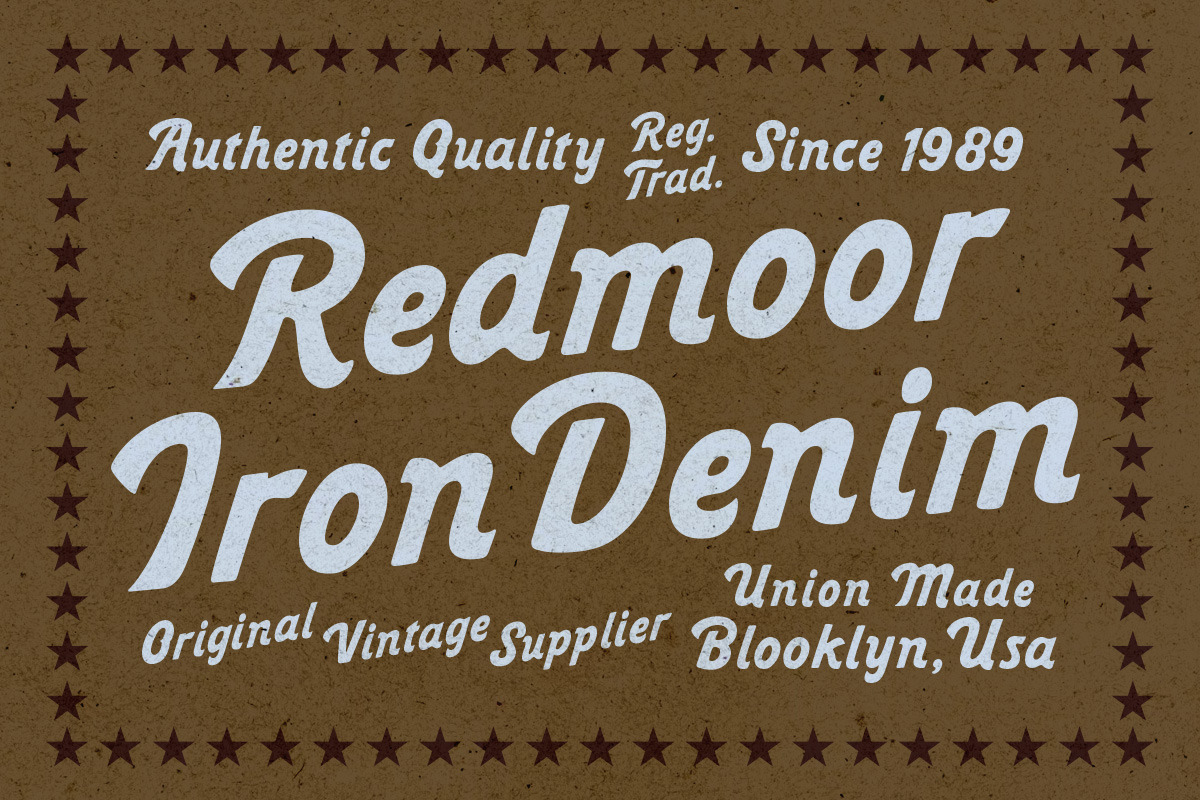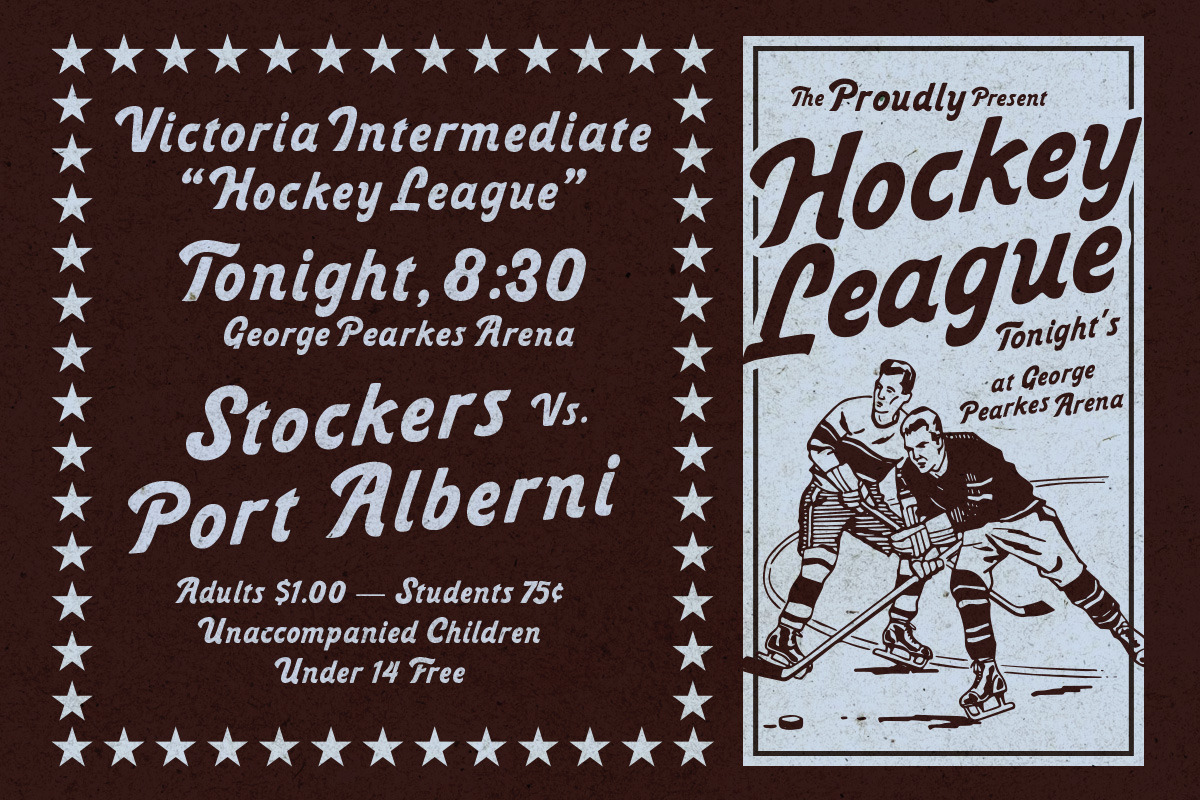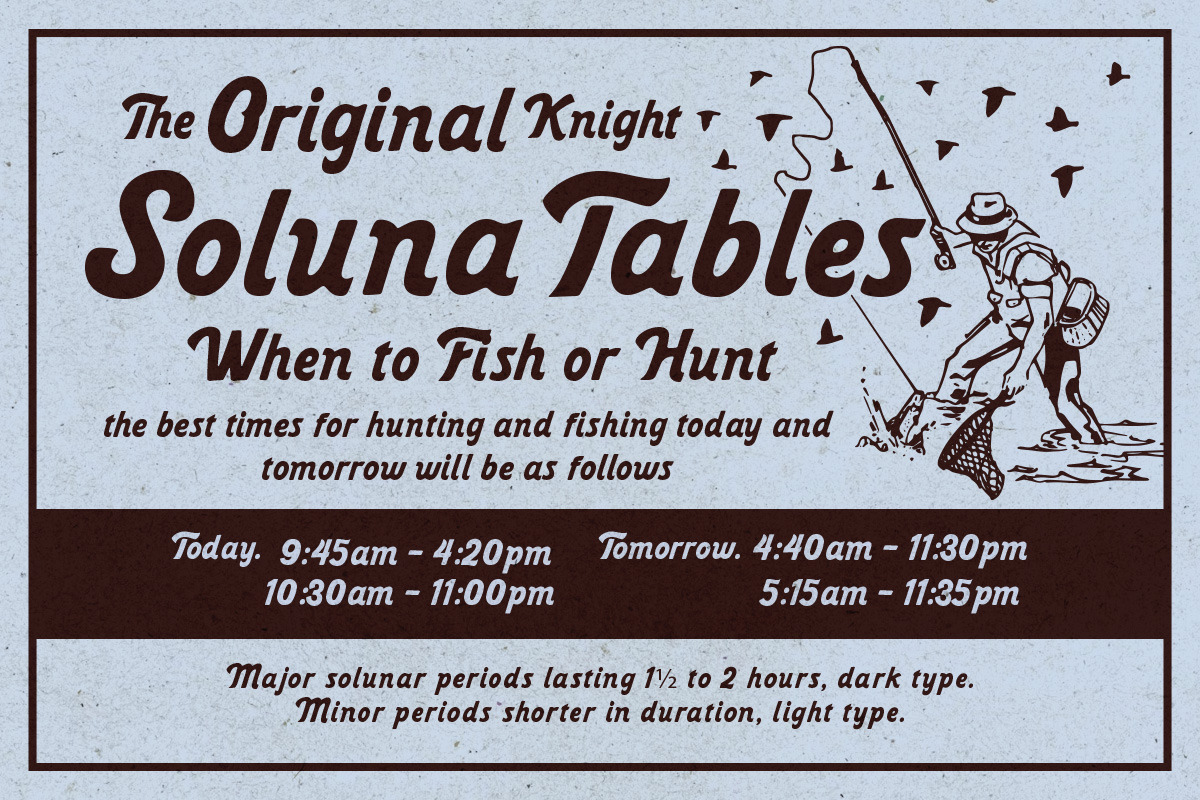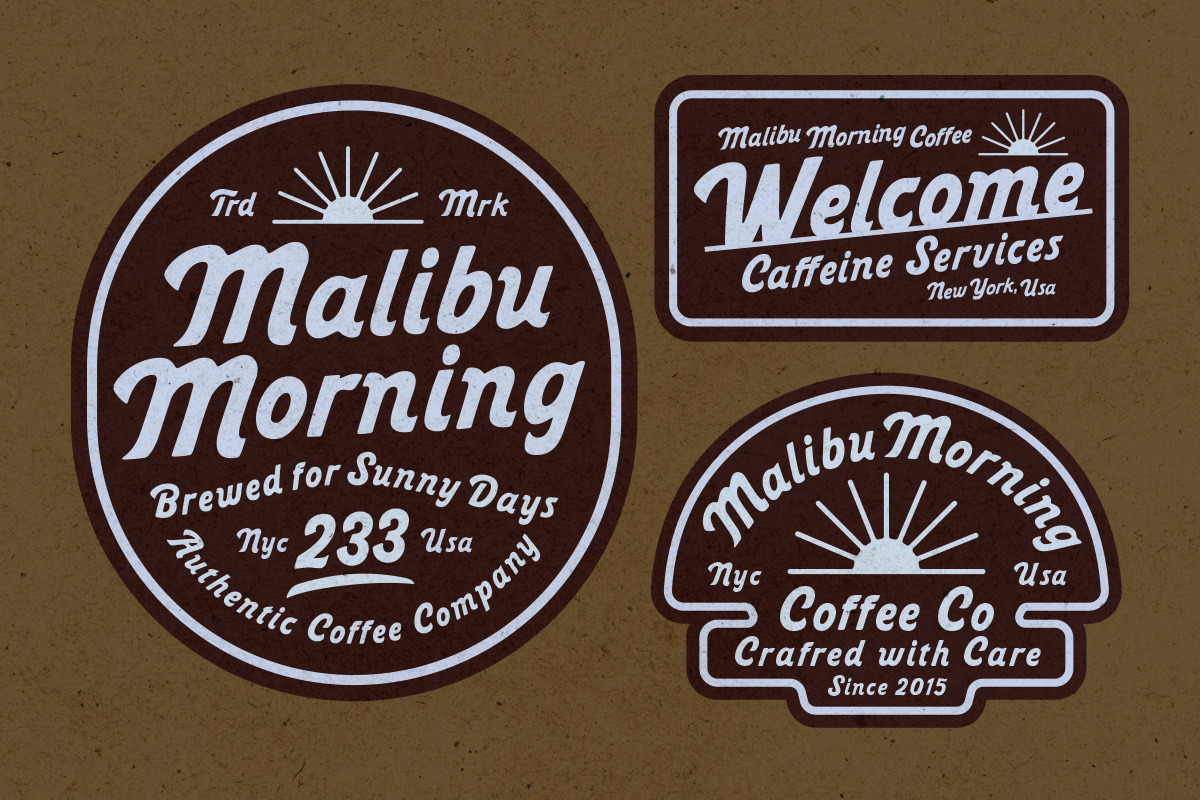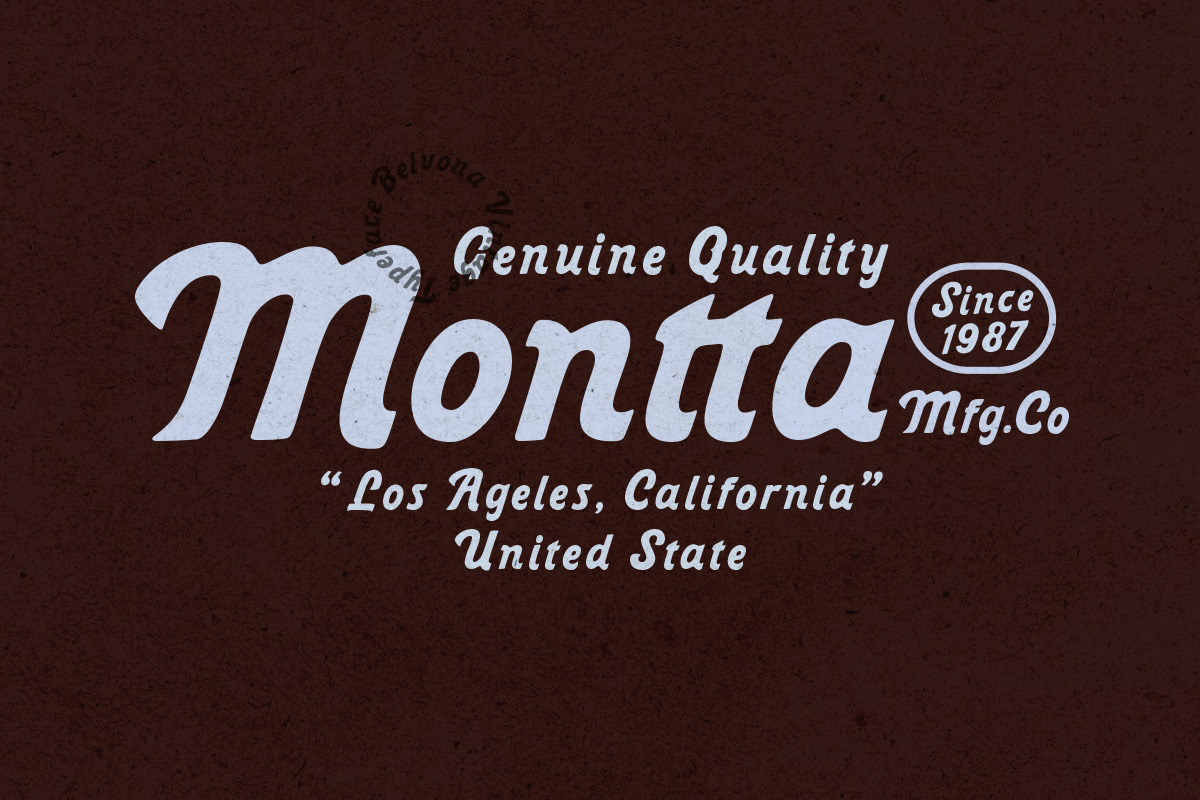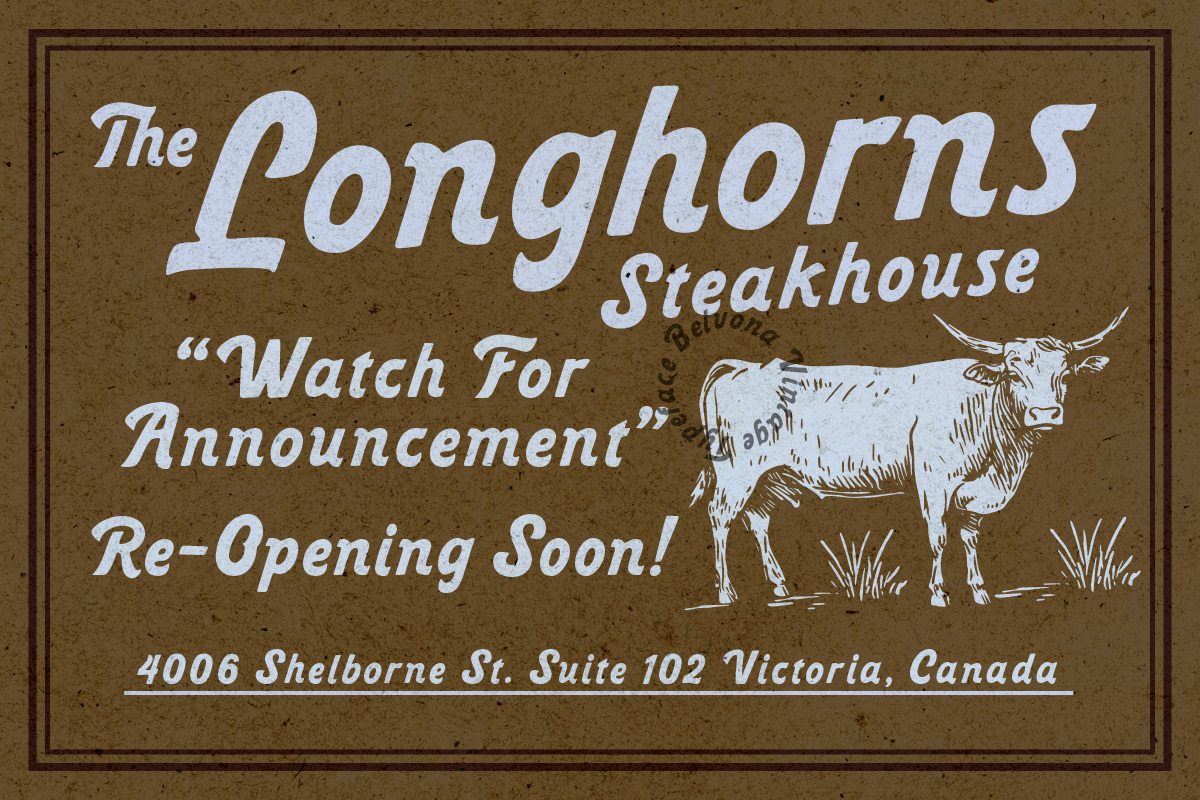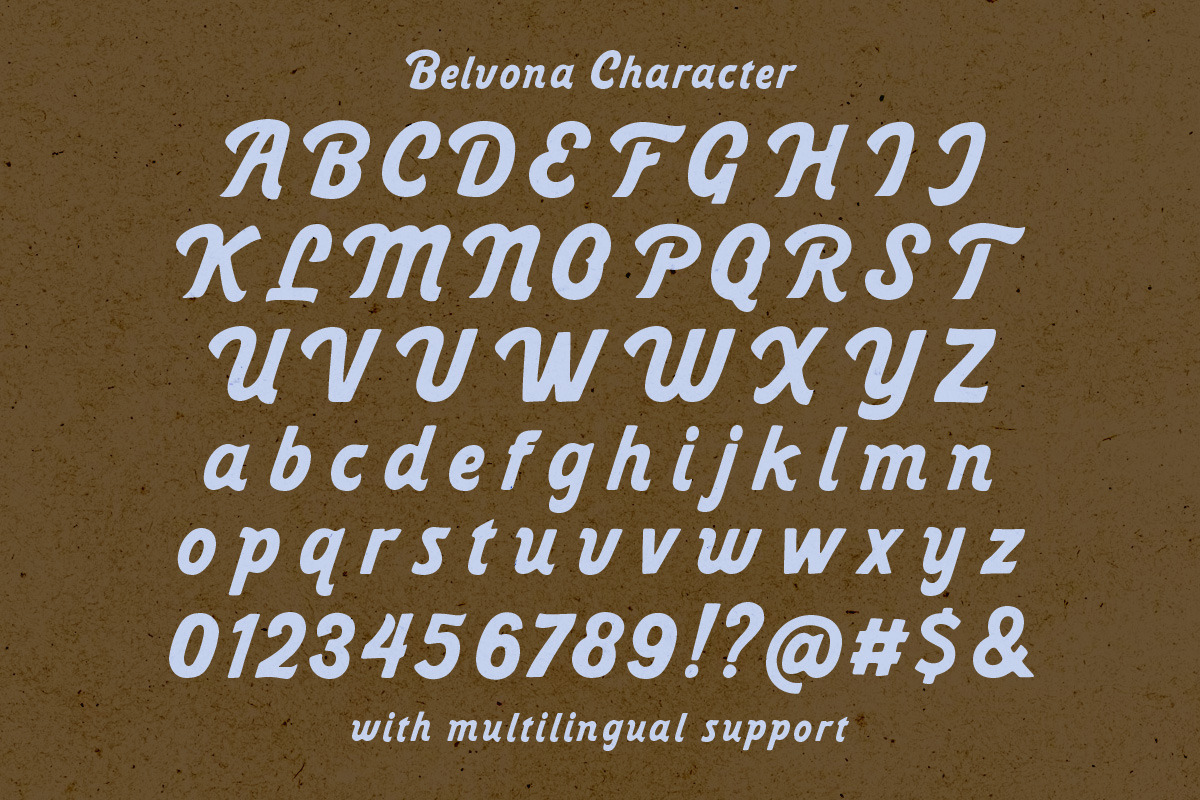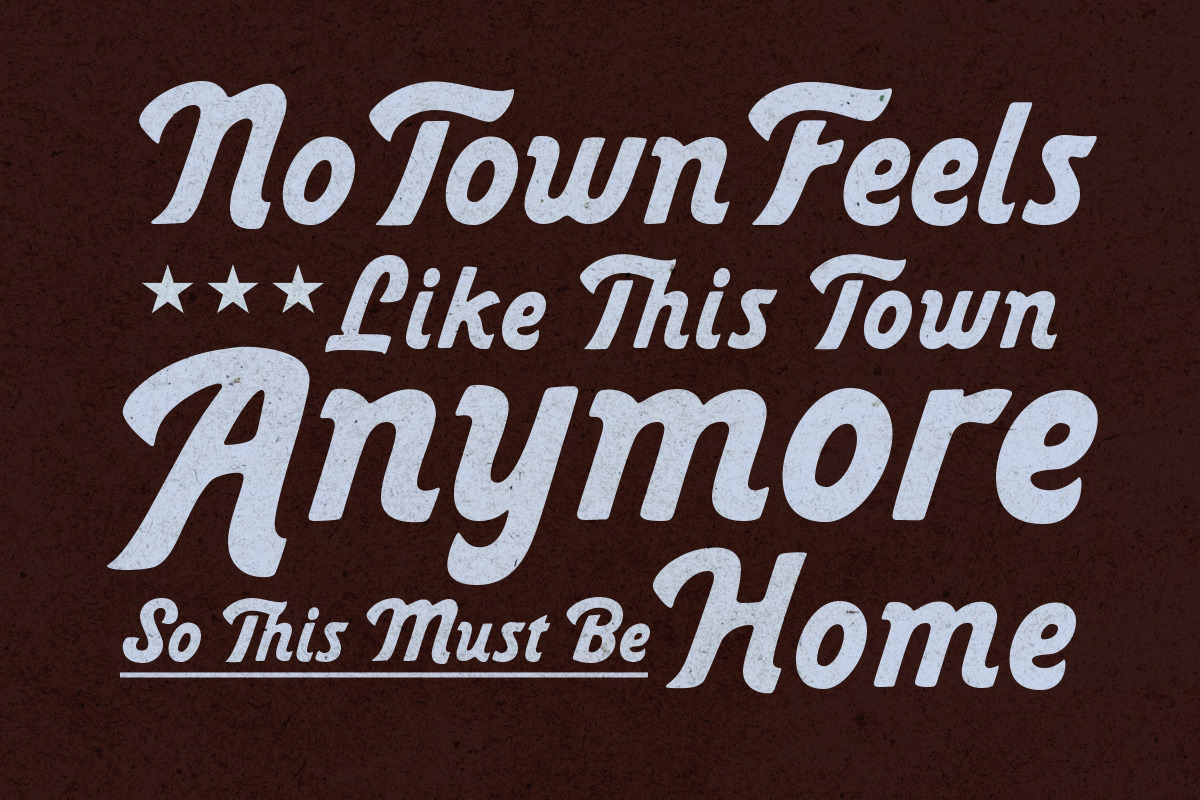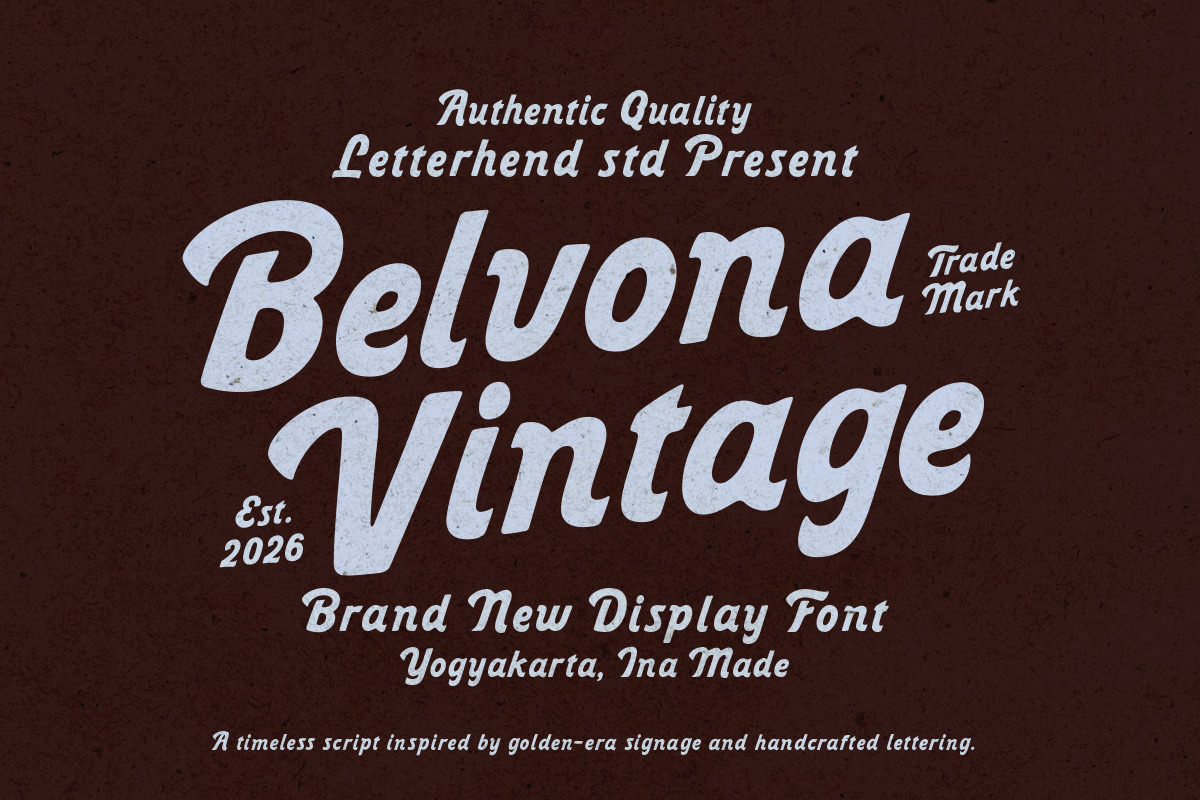
Belvona Vintage Display Font
Inspired by classic signage and old-school storefront lettering, Belvona Vintage brings smooth golden-era charm with a warm, slow-roasted attitude. It’s the kind of typeface that looks right at home on a steakhouse sign, a heritage logo, café branding, or a retro poster announcing something special in style.